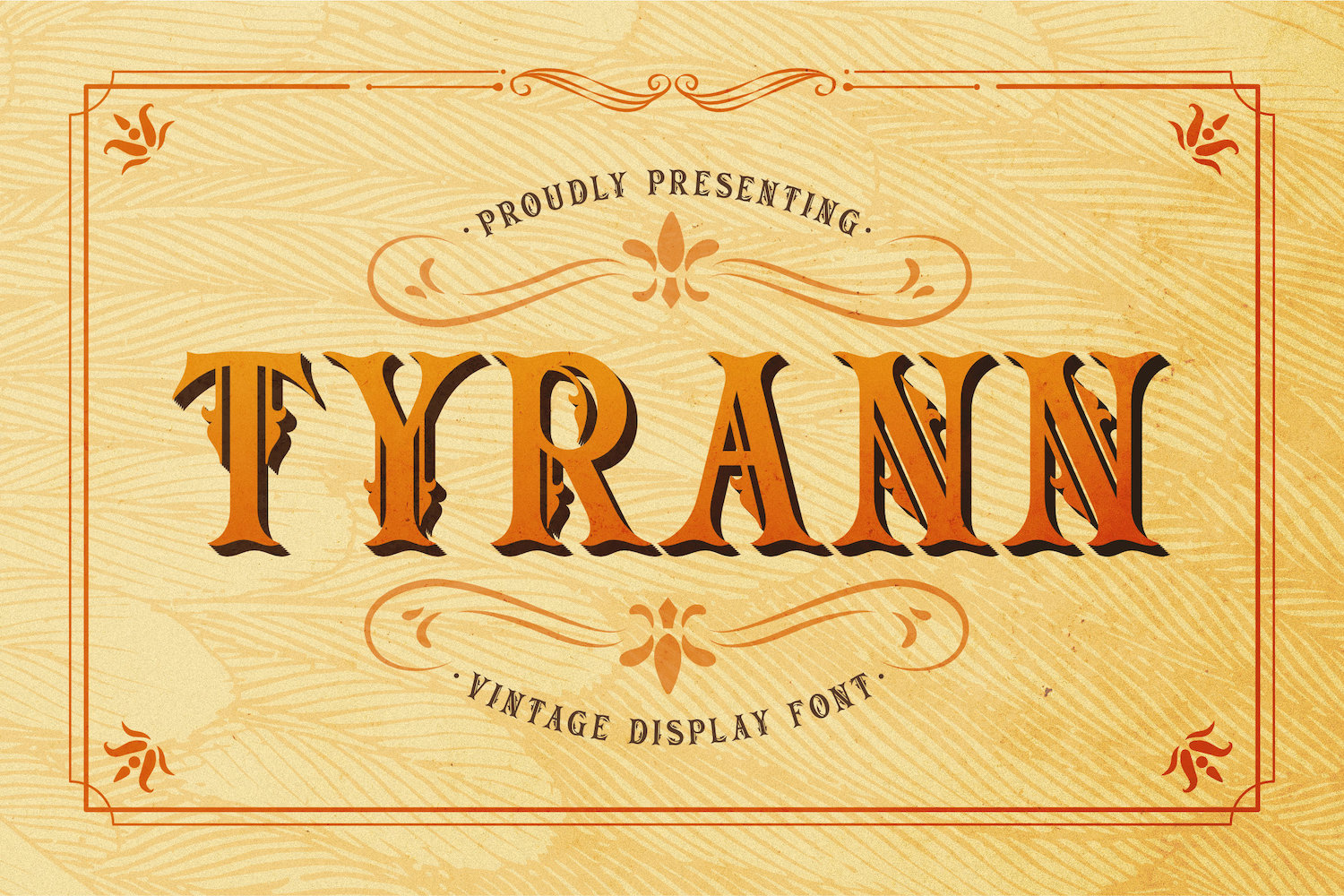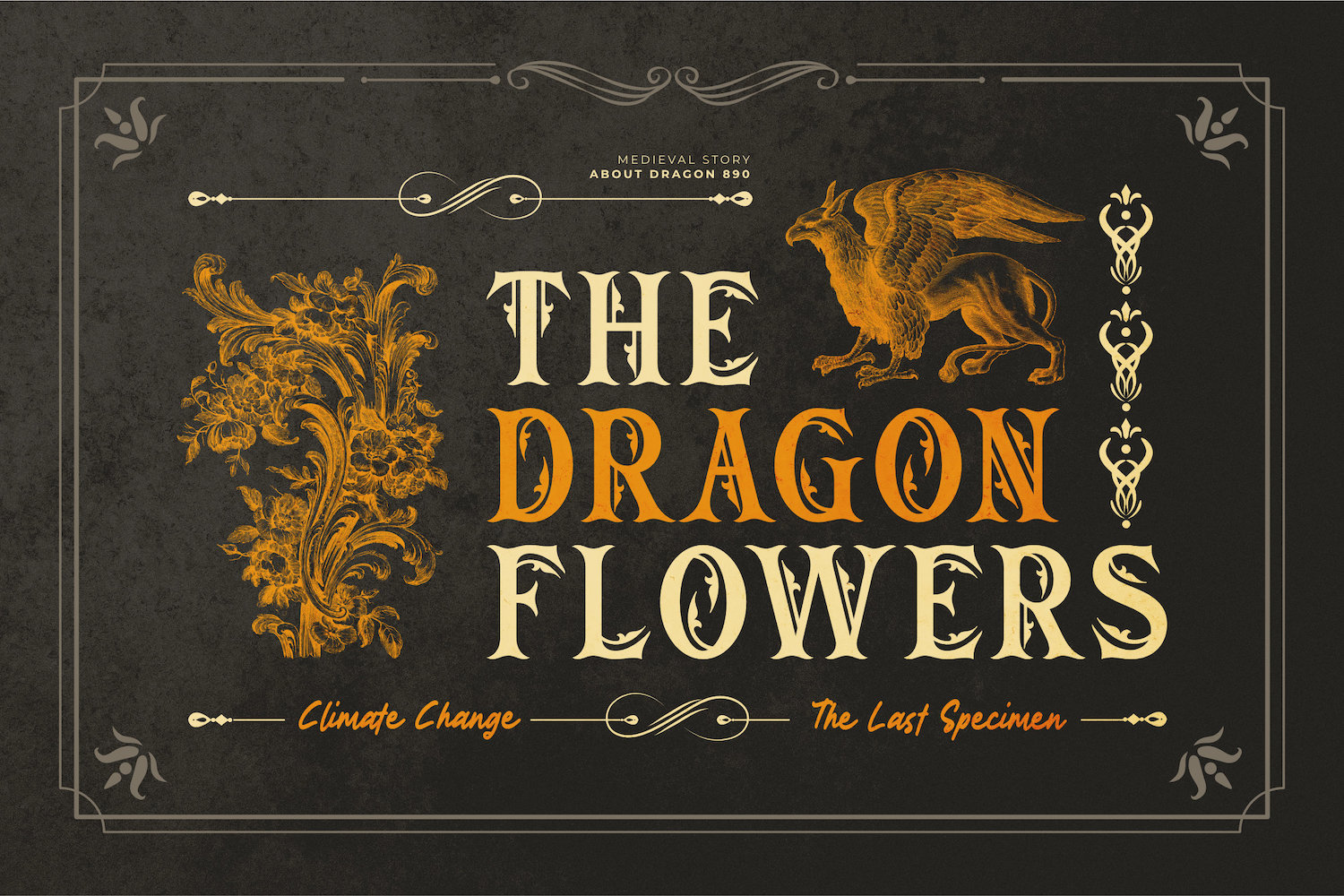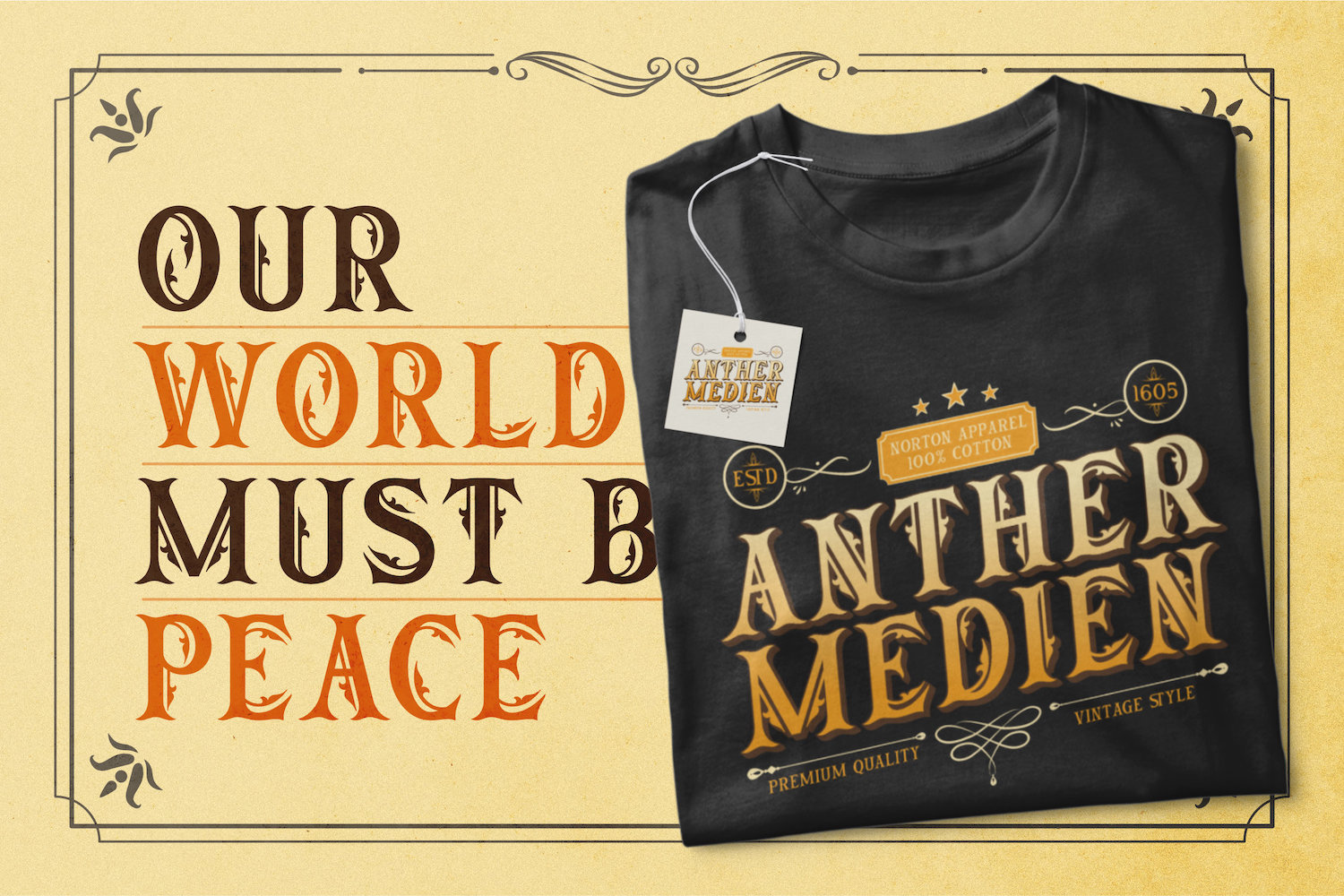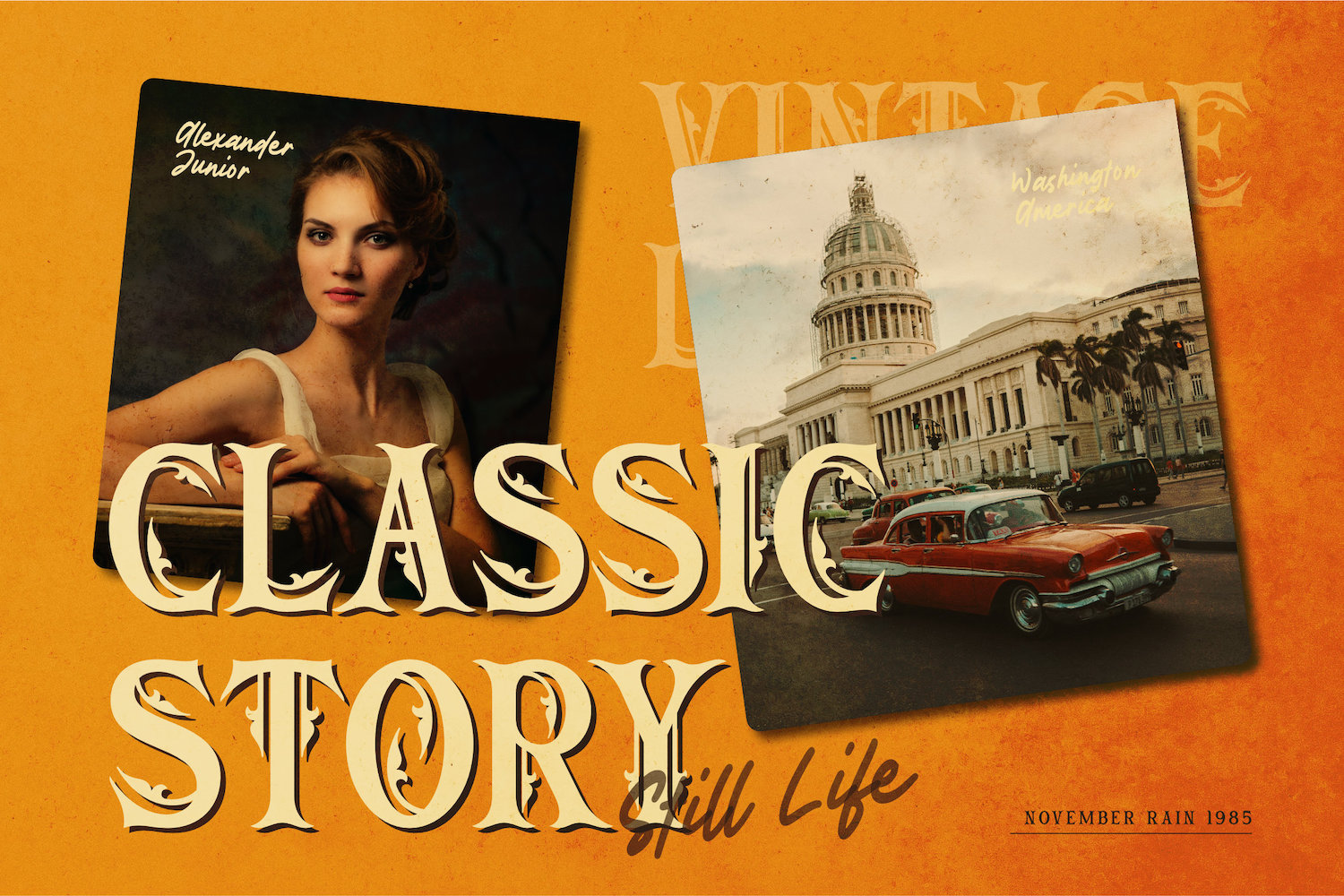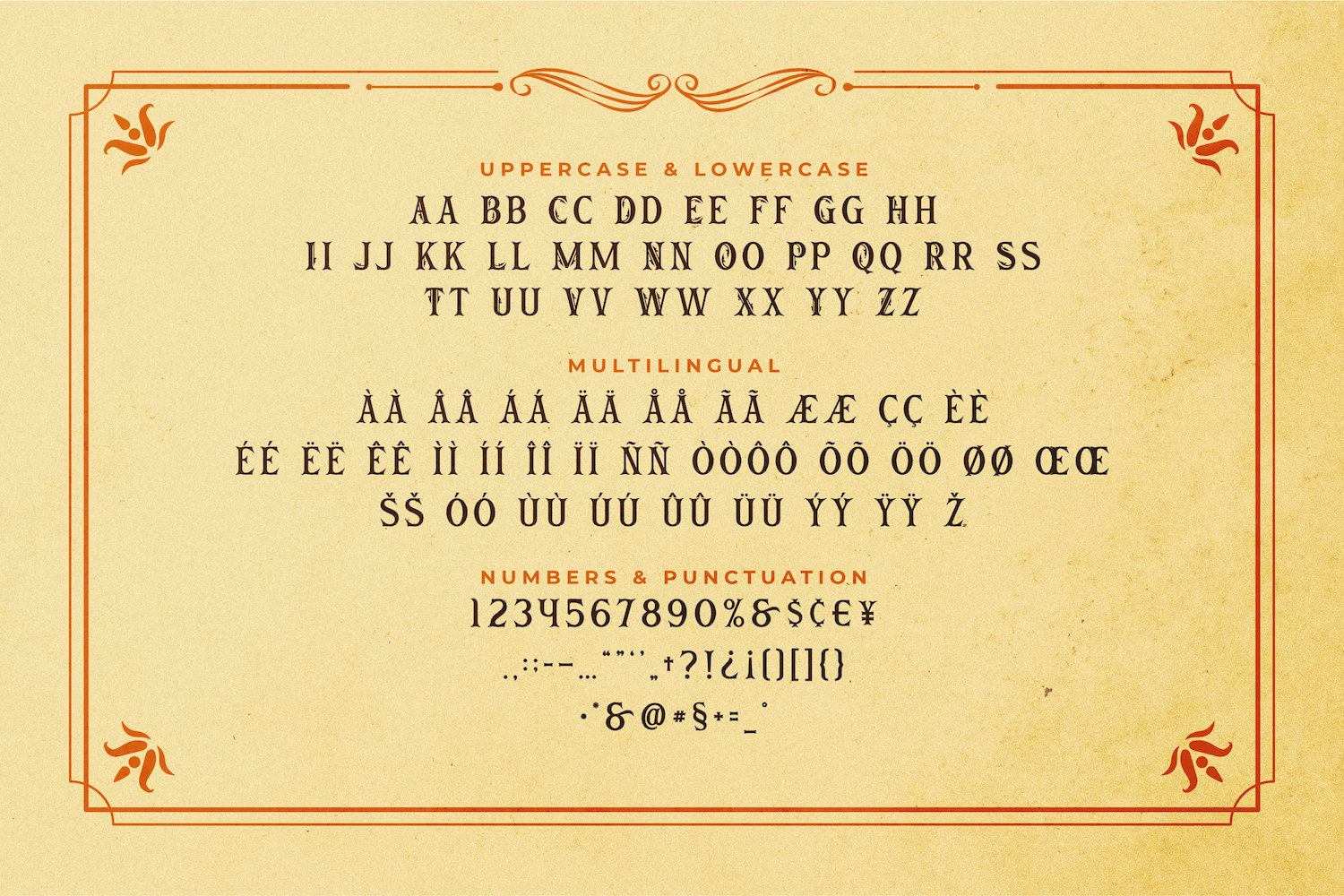
Tyrann is a bold vintage display font inspired by classical sign painting and medieval aesthetics. Its ornamental strokes, dramatic curves, and strong serifs give it a distinct presence, making it ideal for storytelling titles, branding projects, and heritage-inspired designs. Each character is designed with precision to evoke power, tradition, and timeless elegance.
Whether you’re designing for posters, packaging, book covers, or apparel, Tyrann delivers impact with a historic flair. The font includes full uppercase and lowercase characters, multilingual support, numerals, and punctuation. Making it highly functional while staying visually captivating.